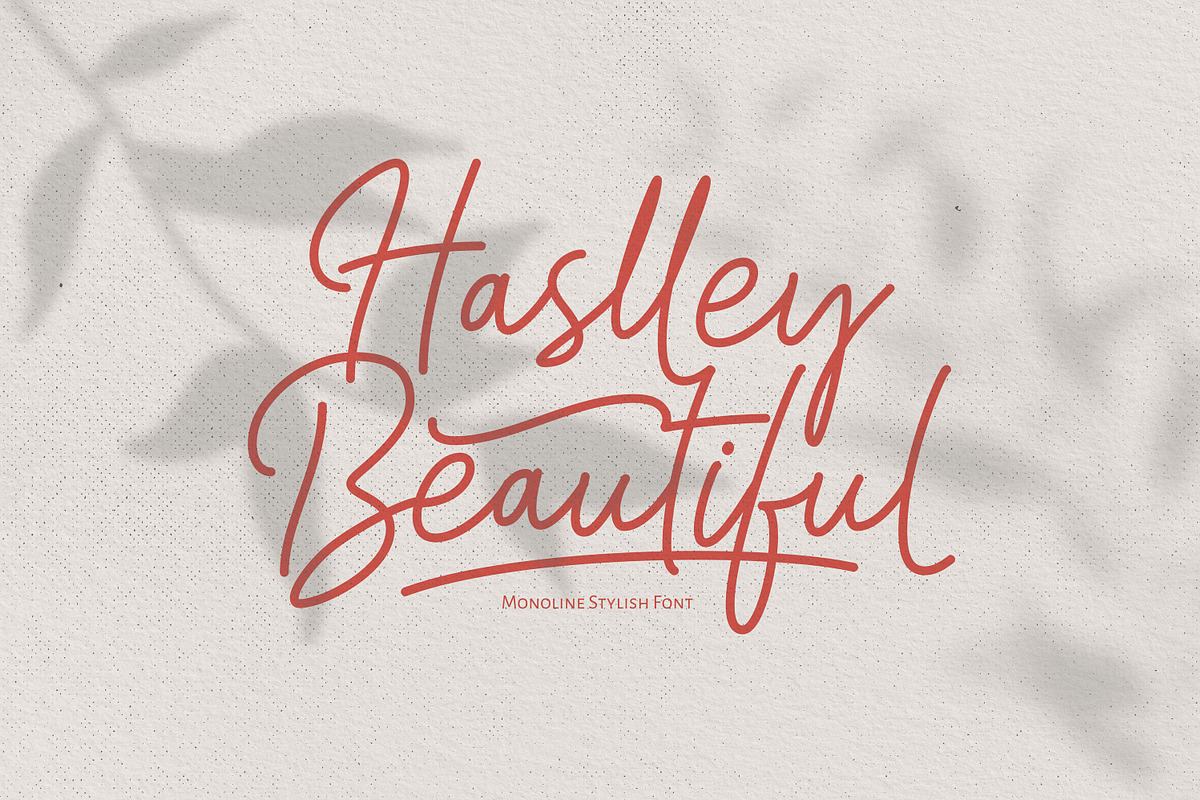
Haslley Beautiful Monoline Free Download
Haslley Beautiful Monoline Font Free Download
The Haslley Beautiful Monoline Font Free Download is an elegant and minimalistic font designed with clean, continuous lines that give it a graceful, monoline look. This font is perfect for creating refined logos, invitations, branding materials, and more. Its simple yet stylish design makes it ideal for modern, sophisticated projects that require a timeless feel. The smooth, flowing lines of Haslley add a touch of elegance to your typography, making it perfect for both personal and professional designs. Please note, for commercial use, a license purchase is required. However, you can easily download the Haslley Beautiful Monoline Font Free Download for free for personal use and explore its versatility. Whether you’re designing for fashion, weddings, or any elegant event, this font will elevate your creative work. Download the Haslley Beautiful Monoline Font Free Download today and add a refined, minimalist touch to your designs.